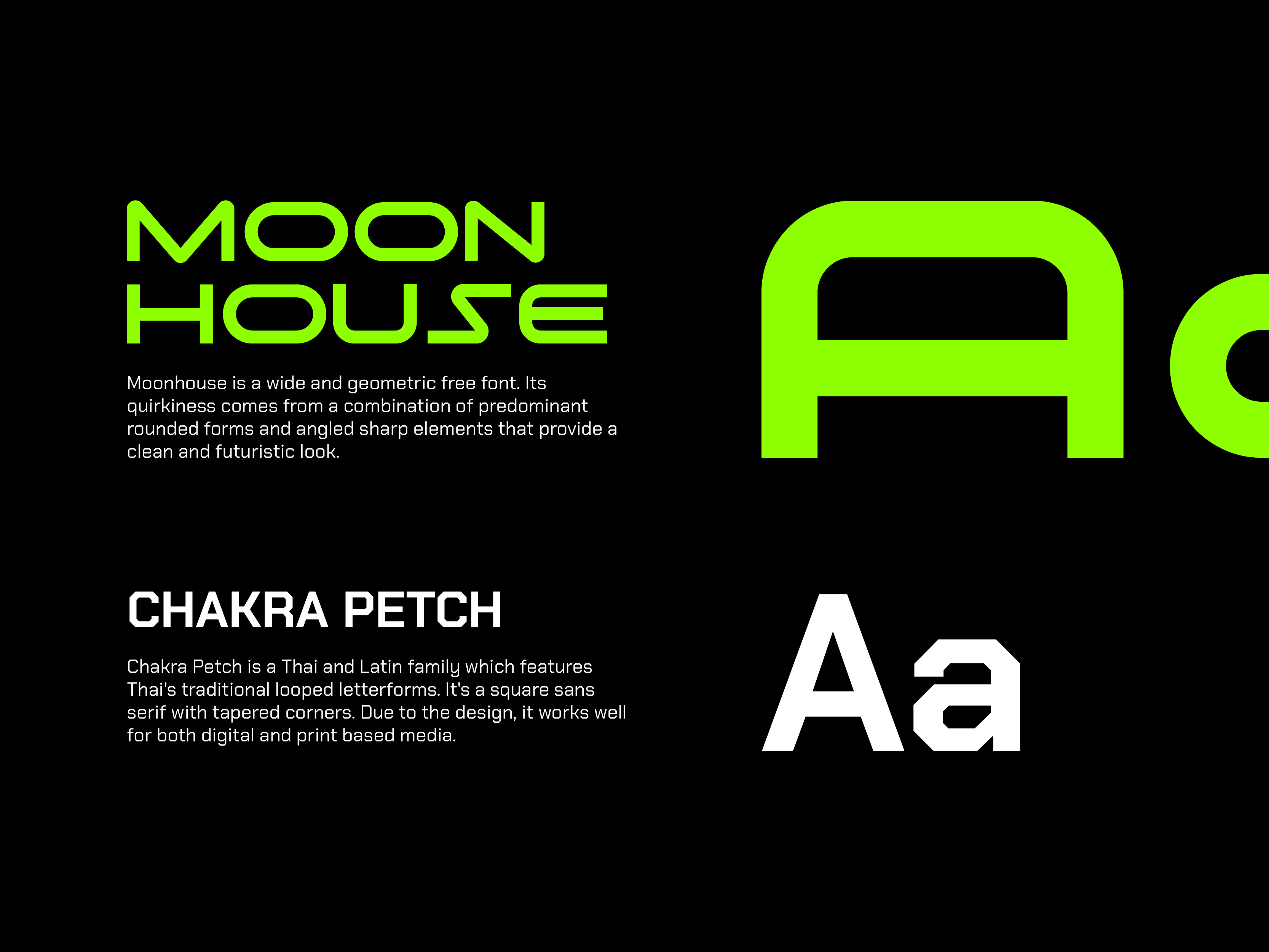
Moon House and Chakra Petch typefaces for CalDance web3 fitness.
Brand typography design for web3 fitness and indoor cycling brand, CalDance. The brand has a cool futuristic vibe that had to be reflected on the creatives attracting tech and sports enthusiasts....
CalDance is a Web 3.0 lifestyle ecosystem that integrates Blockchain fitness application, NFT, and GameFi into physical exercise and fitness equipment helping users earn crypto for staying fit....